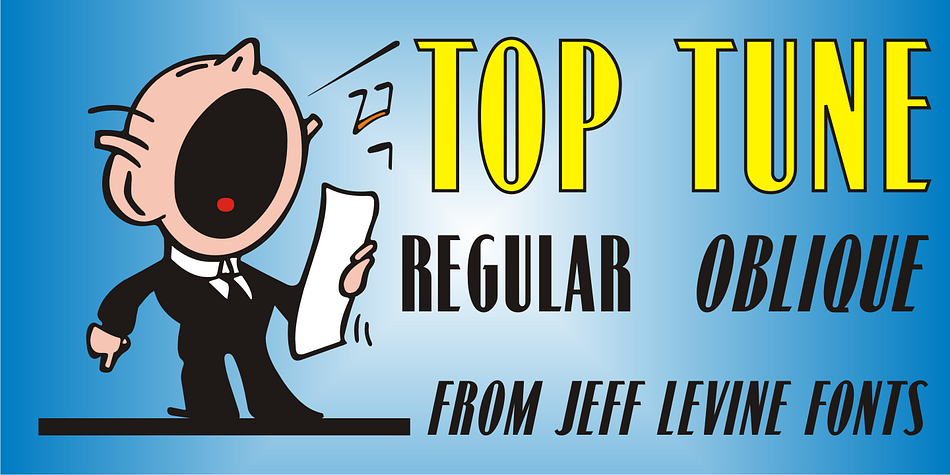
Top Tune JNL is a display sans and art deco font family. This typeface has two styles and was published by Jeff Levine Fonts.
The 1955 British edition of the sheet music for Frank Sinatra’s hit “I’m Walking Behind You” had its title hand lettered in a sans serif design straight out of the Art Deco era.
This bold, condensed type style is now available as Top Tune JNL; in both regular and oblique versions.